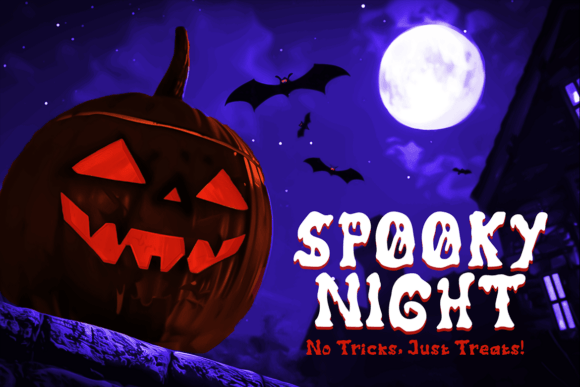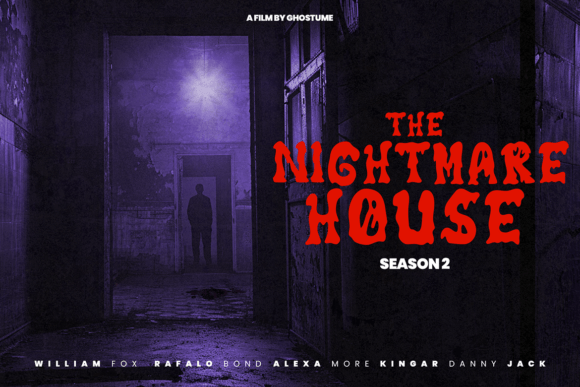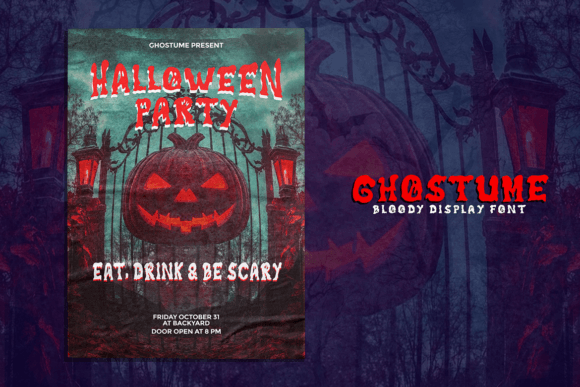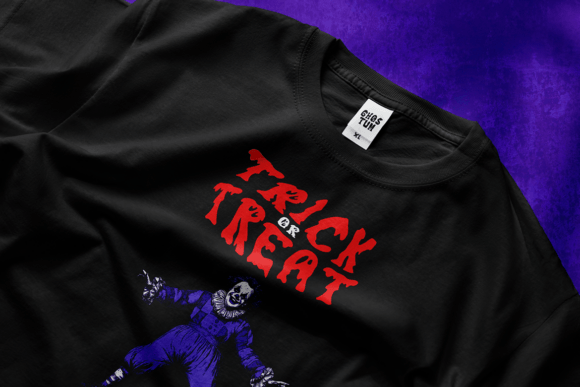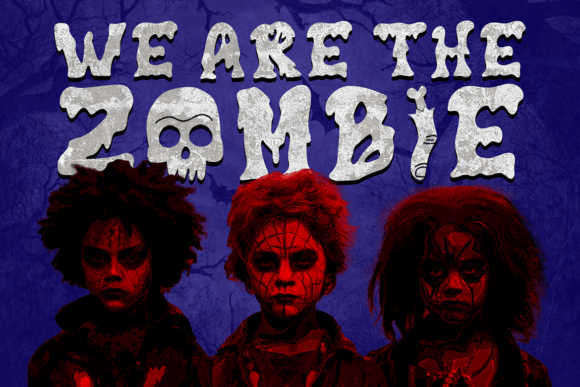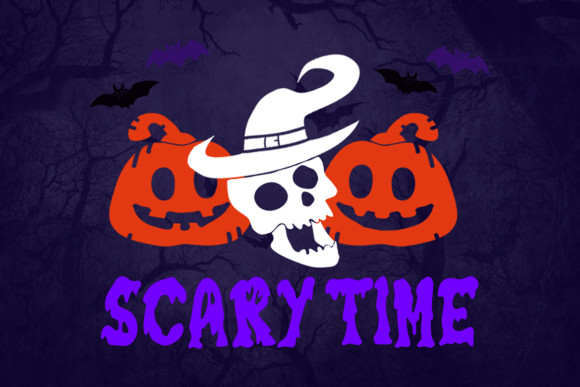
Introducing Ghostume: The Spine-Chilling Font for Halloween
Are you ready to add a touch of spooky whimsy to your designs this Halloween season? Look no further than Ghostume, a font style that perfectly captures the essence of the spookiest time of the year. Inspired by playful ghost characters, Ghostume features a bloody, melted effect that will make your designs stand out from the crowd.
The Inspiration Behind Ghostume
Ghostume is a font that was created with Halloween in mind. The designers wanted to capture the playful and spooky essence of the holiday, and they succeeded with flying colors. The font features a unique, drippy effect that gives it a bloody, melted look. This effect adds a touch of eerie whimsy to any design, making it perfect for Halloween-themed projects, party invitations, and creepy-cute merchandise.
What Makes Ghostume So Special?
So, what sets Ghostume apart from other fonts? Here are a few things that make it truly special:
- Unique Drippy Effect: The bloody, melted effect of Ghostume is unlike anything you’ve seen before. It adds a touch of spookiness to any design, making it perfect for Halloween-themed projects.
- Playful yet Eerie: Ghostume strikes the perfect balance between playful and eerie. It’s fun and whimsical, yet still manages to send a chill down your spine.
- Perfect for Halloween: Ghostume is specifically designed for Halloween, making it the perfect font for any spooky-themed project.
Uses for Ghostume
Ghostume is a versatile font that can be used in a variety of ways. Here are a few ideas to get you started:
- Halloween-themed Projects: Use Ghostume to create spooky and fun designs for Halloween-themed projects, such as party invitations, flyers, and brochures.
- Creepy-Cute Merchandise: Ghostume is perfect for creating creepy-cute merchandise, such as t-shirts, mugs, and phone cases.
- Party Invitations: Use Ghostume to create spooky and fun party invitations that will set the tone for a howling good time.
Tips for Using Ghostume
Here are a few tips for using Ghostume in your designs:
- Experiment with Colors: Ghostume looks great in a variety of colors, so don’t be afraid to experiment and find the perfect color scheme for your design.
- Mix and Match Fonts: Ghostume pairs well with other fonts, so try mixing and matching it with different fonts to create a unique look.
- Don’t be Afraid to Get Creative: Ghostume is a versatile font, so don’t be afraid to get creative and try new things.
If you’re looking for a font that will add a touch of spooky whimsy to your designs this Halloween season, look no further than Ghostume. With its unique drippy effect and playful yet eerie aesthetic, Ghostume is the perfect font for any Halloween-themed project. So why wait? Download Ghostume today and bring your designs to life with its haunting charm.
Key Features of Ghostume
- Unique Bloody, Melted Effect
- Playful yet Eerie Aesthetic
- Perfect for Halloween-themed Projects
- Creepy-Cute Merchandise
- Party Invitations
By incorporating Ghostume into your designs, you’ll be sure to create spooky and fun projects that will stand out from the crowd. So don’t miss out on this amazing opportunity to take your designs to the next level. Get Ghostume today and make your creative visions a reality this spooky season!